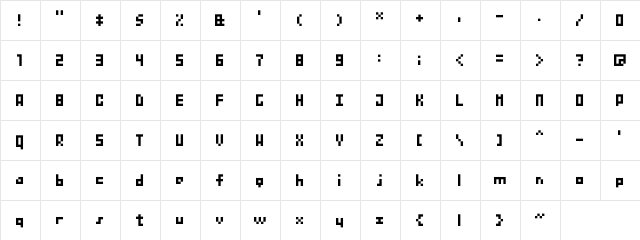
BitNanov33 Regular Font Preview
BitNanov33 Regular
Design Context for BitNanov33 Typeface
BitNanov33 offers clean, dependable letterforms without strong stylistic allegiance, making it a practical choice for designers who need flexibility.